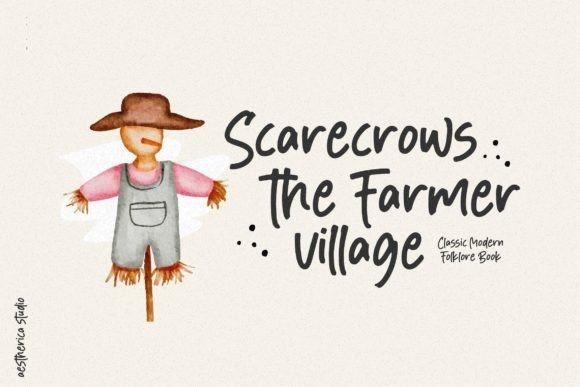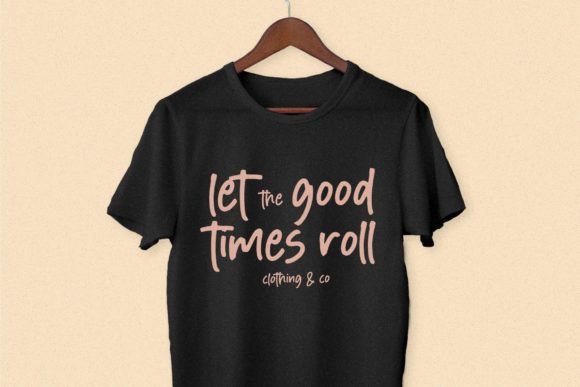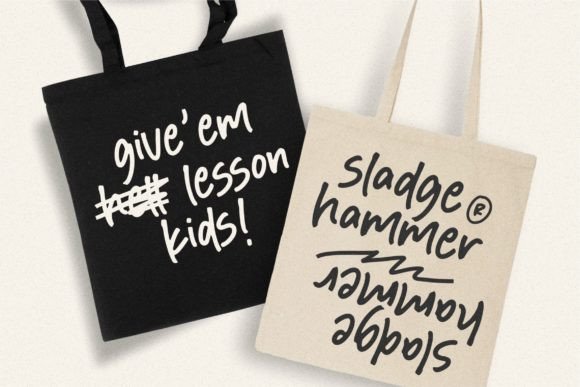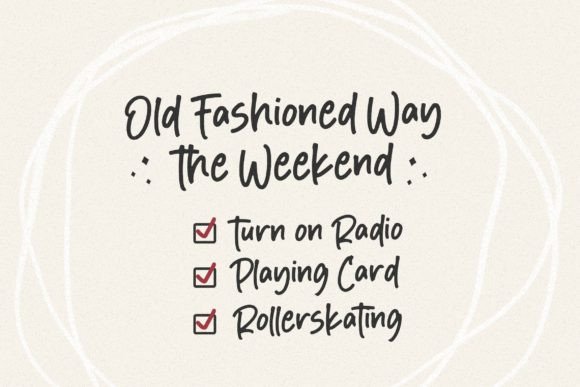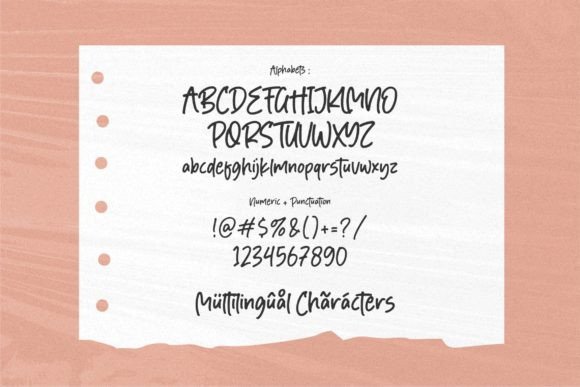
The Ultimate Guide to Blackdog Font: Adding a Touch of Whimsy to Your Designs
I’ll never forget the time I was working on a project for a children’s birthday party invitation. I had the design concept all sorted out, but I was stuck on finding the perfect font. The invitation needed to be fun, playful, and eye-catching, but everything I tried seemed either too boring or too over-the-top. That’s when I stumbled upon Blackdog Font. It was love at first sight! ✨
Blackdog is a fun and friendly handwritten font that’s whimsical and a bit quirky. It’s perfect for designers, crafters, and creative hobbyists looking to brighten up their designs. In this article, I’ll share my honest review of Blackdog Font, provide a practical guide on how to use it, and explore similar fonts and alternatives.
- ✨ Unique and playful personality: Blackdog Font has a distinct, hand-crafted feel that’s perfect for designs that need a personal touch.
- ✅ Highly legible: Despite its playful nature, Blackdog Font is surprisingly easy to read, even at smaller sizes.
- 🌈 Versatile: This font works well for a wide range of design projects, from invitations and greeting cards to social media graphics and posters.
While Blackdog Font is an excellent choice for many design projects, there are a few things to keep in mind: 🤔
- ⚠️ Limited use in formal designs: Blackdog Font is playful and informal, so it may not be the best choice for designs that require a more professional tone.
- ⚠️ Some letters may require adjustment: Depending on the word or phrase, some letters may need to be adjusted to ensure proper spacing and alignment.
If you love Blackdog Font, you may also enjoy these similar fonts and alternatives:
- Kawaii: A cute and playful font with a similar whimsical feel to Blackdog. Use Kawaii for designs that require a more feminine touch.
- Great Vibes: A fun and energetic font with a similar handwritten feel to Blackdog. Use Great Vibes for designs that require a more dynamic personality.
- Lobster: A elegant and refined font with a similar cursive feel to Blackdog. Use Lobster for designs that require a more sophisticated touch.
- Pacifico: A beautiful and elegant font with a similar handwritten feel to Blackdog. Use Pacifico for designs that require a more relaxed and casual personality.
The Story Behind Blackdog Font
Blackdog Font was designed by a creative team that’s passionate about typography and design. The team wanted to create a font that’s fun, playful, and easy to use. Inspired by the quirks and charm of handwritten letters, Blackdog Font is the perfect choice for designers looking to add a personal touch to their designs.
Q: What is Blackdog Font best used for?
A: Blackdog Font is best used for designs that require a fun, playful, and whimsical touch, such as invitations, greeting cards, and social media graphics.
Q: Is Blackdog Font suitable for formal designs?
A: No, Blackdog Font is not suitable for formal designs. It’s best used for informal and creative projects.